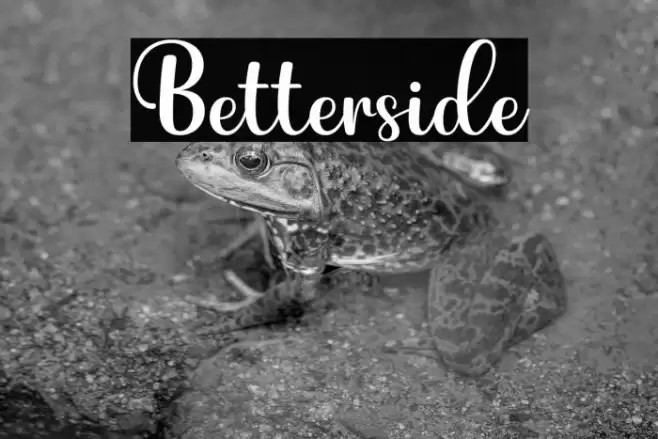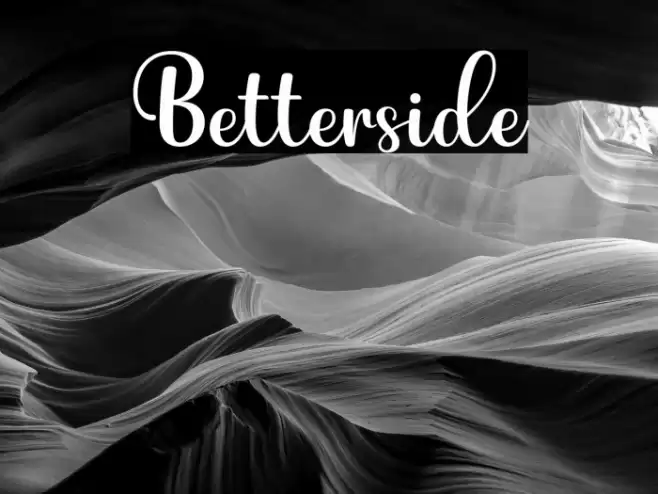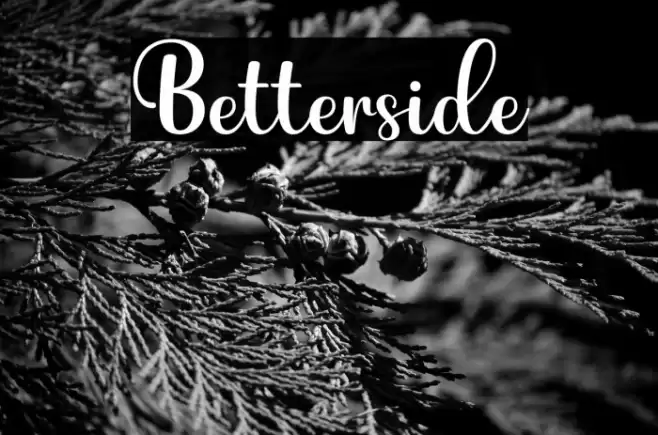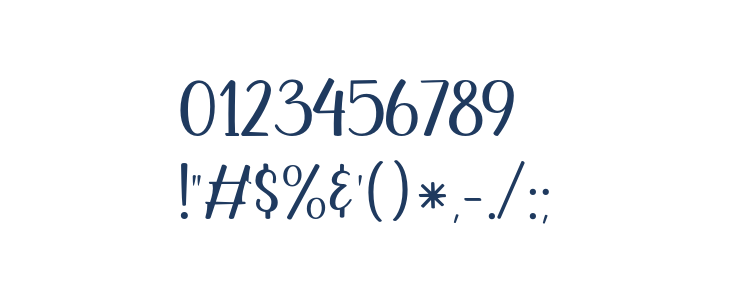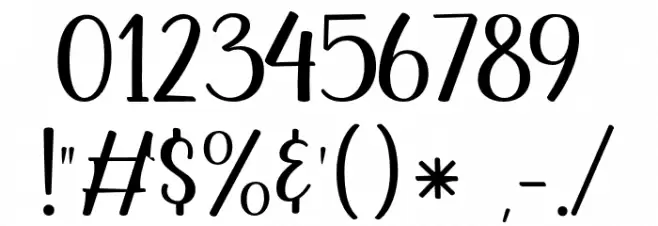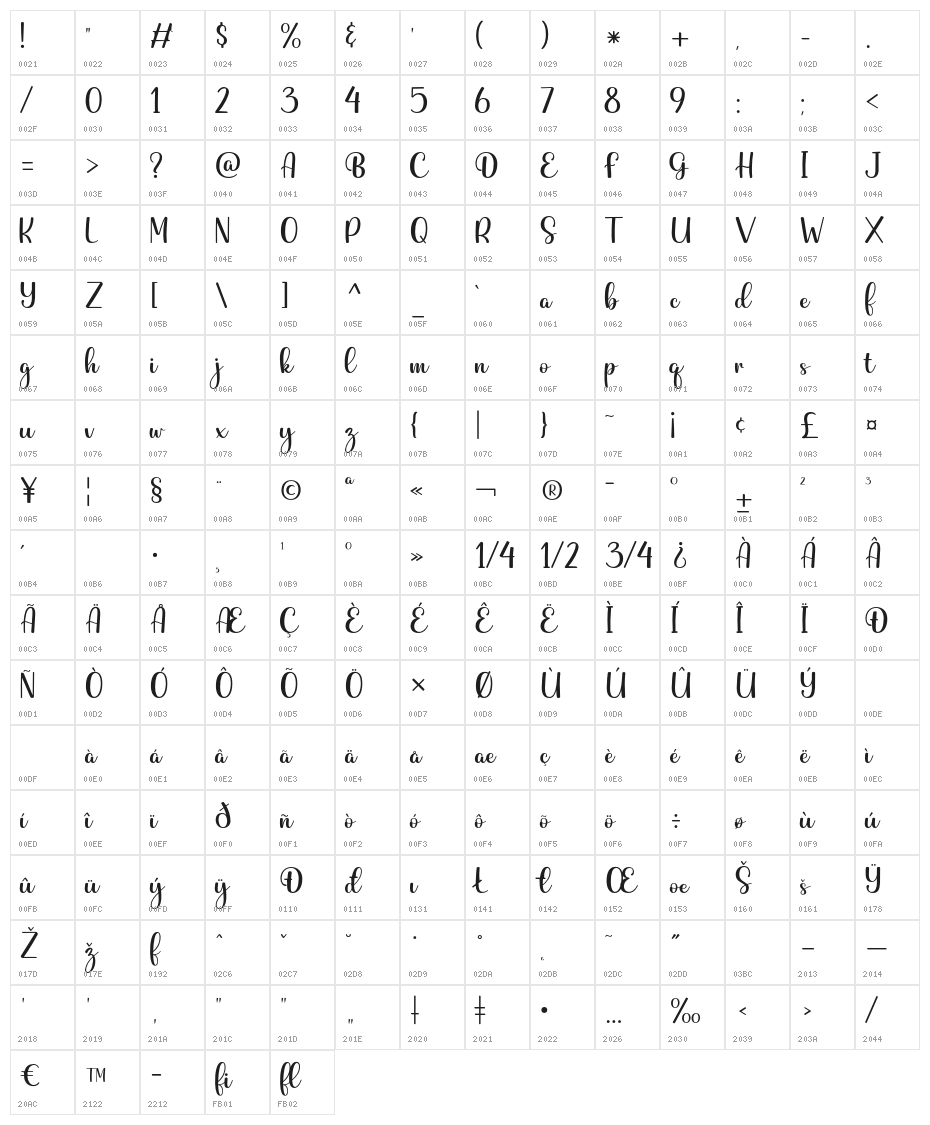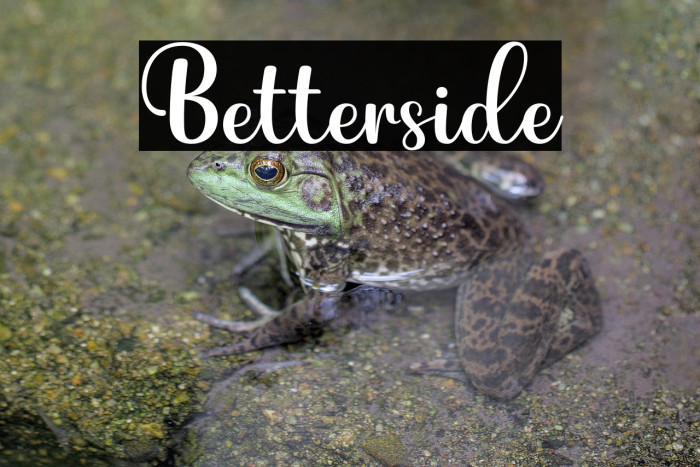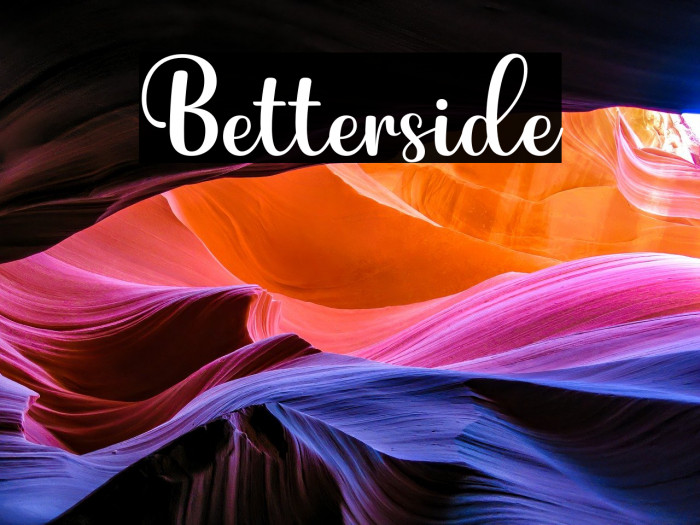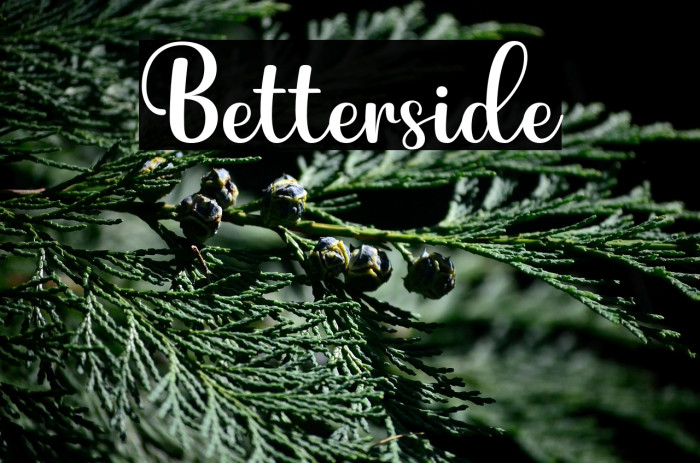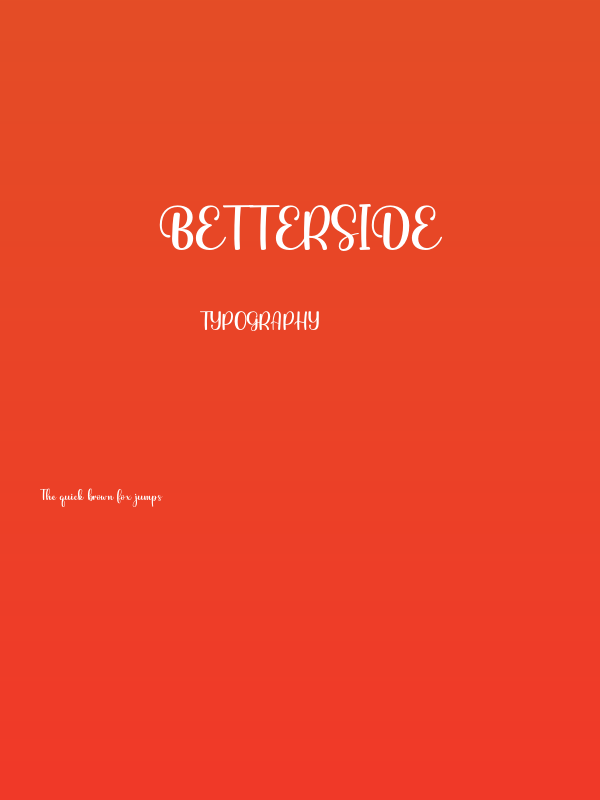
Betterside Font
Betterside Description
This font features a playful and elegant script style with a handwritten feel. The uppercase letters are bold and slightly condensed, giving a strong presence, while the lowercase letters are more fluid and connected, adding a touch of sophistication. The numerals are clear and easy to read, maintaining the playful style of the font. Special characters are well-integrated, matching the overall aesthetic. The font's strokes vary in thickness, providing a medium contrast that enhances its readability and visual appeal. Its unique style makes it suitable for creative and decorative purposes.
A playful, elegant script font with a handwritten feel and medium contrast from Regular fonts.
- Font: Betterside
- Proposed Projects: Ideal for wedding invitations, greeting cards, logos, and branding materials.
- Use Case: Logos, Invitations, Decorative text